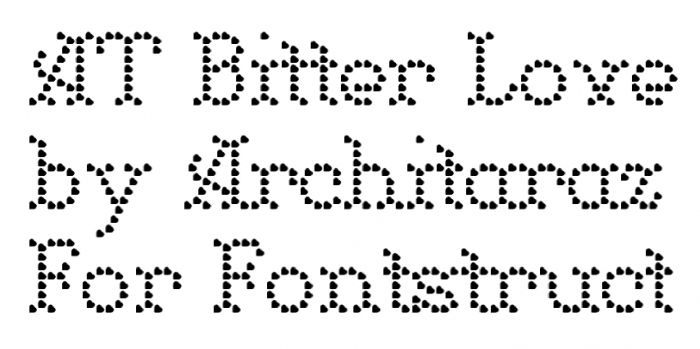
• I've remade previous AT Sour Love by adding serifs, it fits better for this 45 degree rotated heart. But as previous one, the downloaded font still has rendering issues despite my attempts, most bricks located at lower serifs change into other brick for some unkown reason. Holes in hearts were removed cause they too have rendering issues when downloaded.